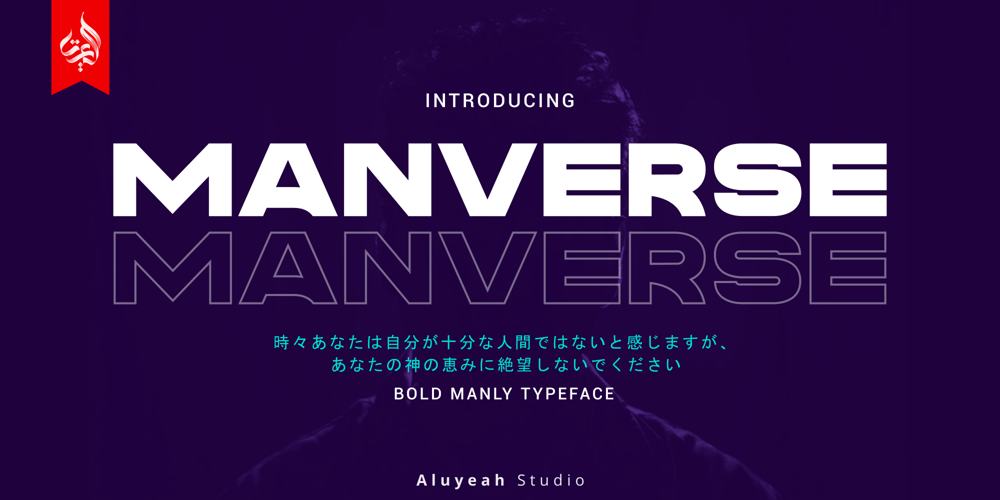
Al Manverse Norm Font Family was designed by Linggar Sundoro and published by Aluyeah Studio. Al Manverse Norm contains 2 styles and family package options. Hallo Aluyeaholic! Introducing Manverse, a bold manly typeface. Inspired by the things that make up the world of men. With a bold, strong, and firm vibe. Coming with 2 styles, all caps and multilingual support.Very suitable for magazine, headline, website, ads, product package and all type of design project you have. Thanks for checking out my font. I really hope you enjoy using it!If you have any questions I’d be more than happy to answer them, just send me a message!